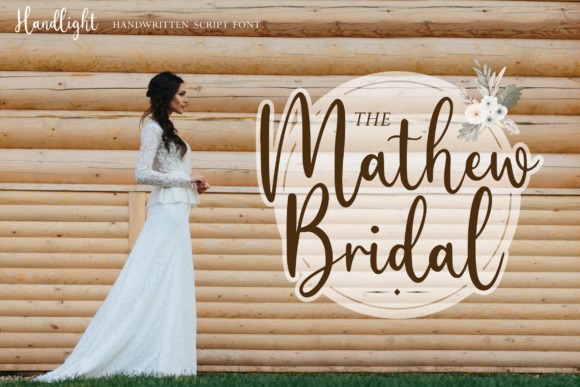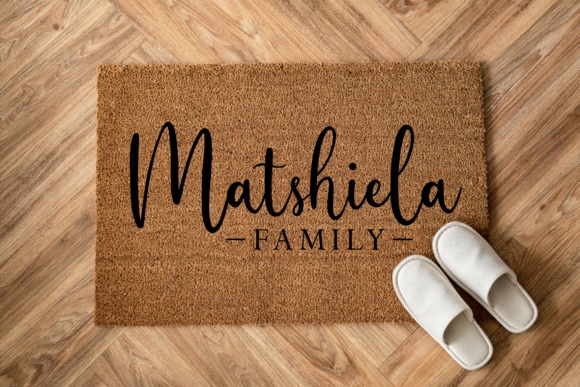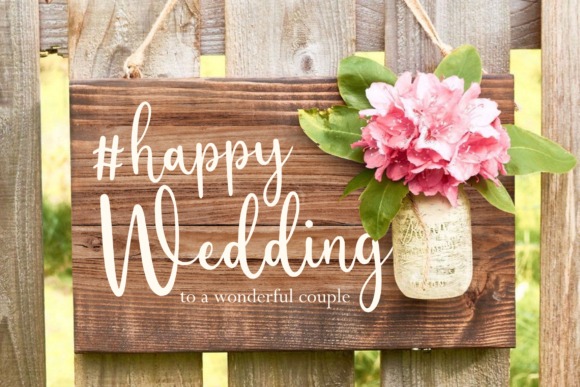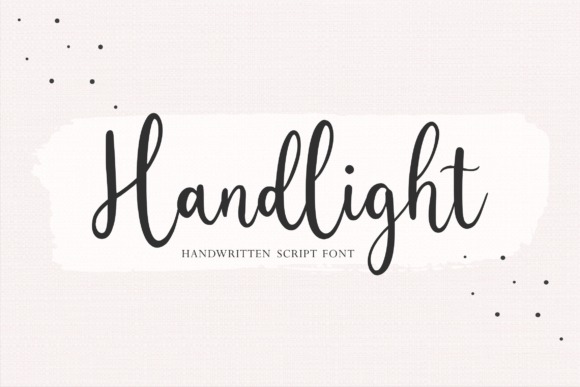
Handlight Font
Handlight Script Font
This is A Handwritten Script Font. Handlight is perfect for product packaging, branding project, megazine, social media, wedding, or just used to express words above the background.